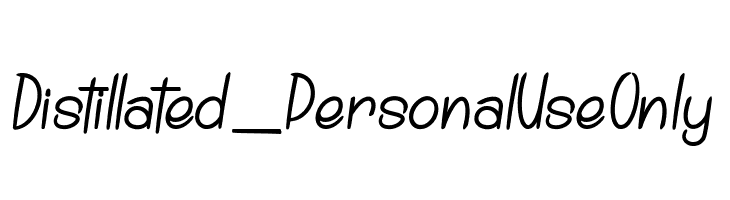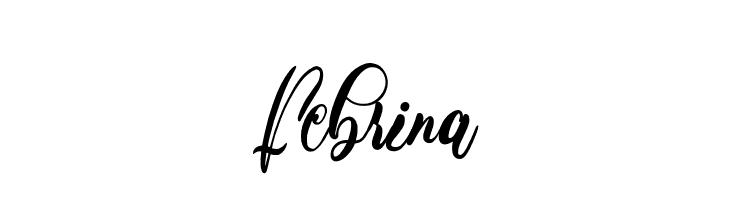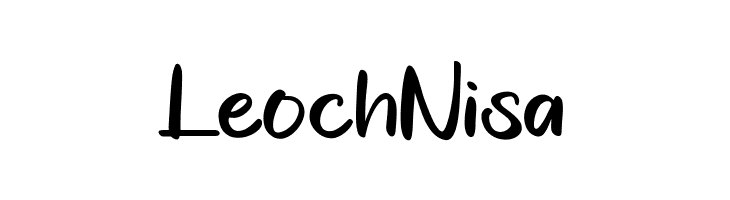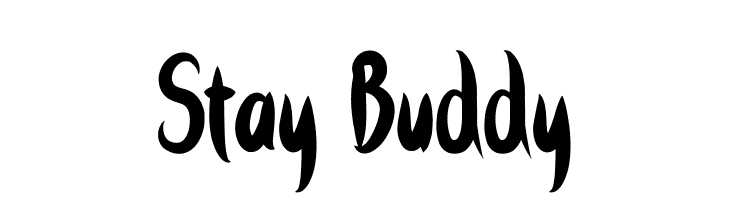
A playful, handwritten font with smooth, flowing lines and a casual style.
A dynamic and elegant script font with flowing, cursive letterforms.
A bold, expressive handwritten font with fluid strokes and a brush-like texture.
A bold, jagged font with a Halloween-inspired, carved pumpkin look.
A sleek, modern italic font with elongated, narrow characters.
A rugged, hand-carved font with an organic, etched appearance.
A bold, futuristic font with a geometric and sci-fi inspired design.
A bold, flowing script font with elegant, cursive letterforms.
A bold, brushstroke-style font with an expressive, hand-painted look.
A refined and elegant script font with flowing, cursive letters.